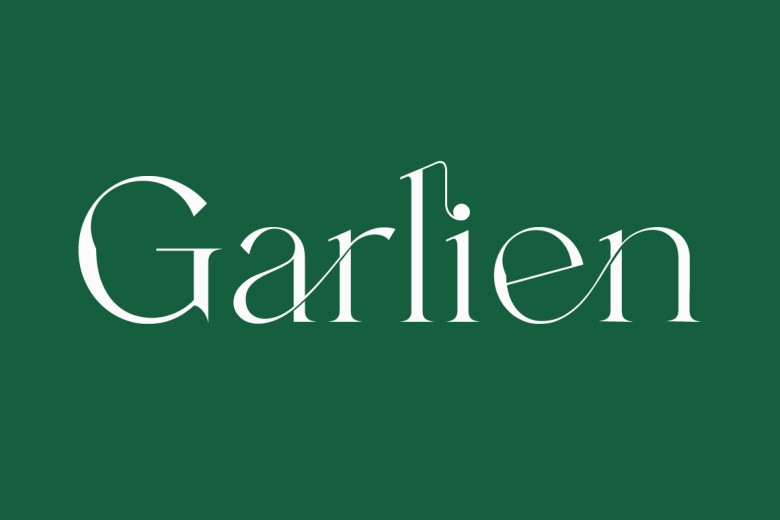
Garlien Font
Garlien is a stylish and fashionable serif font. Masterfully designed to become a true favorite, this font has the potential to bring each of your creative ideas to the highest level!
Garlien Serif Font